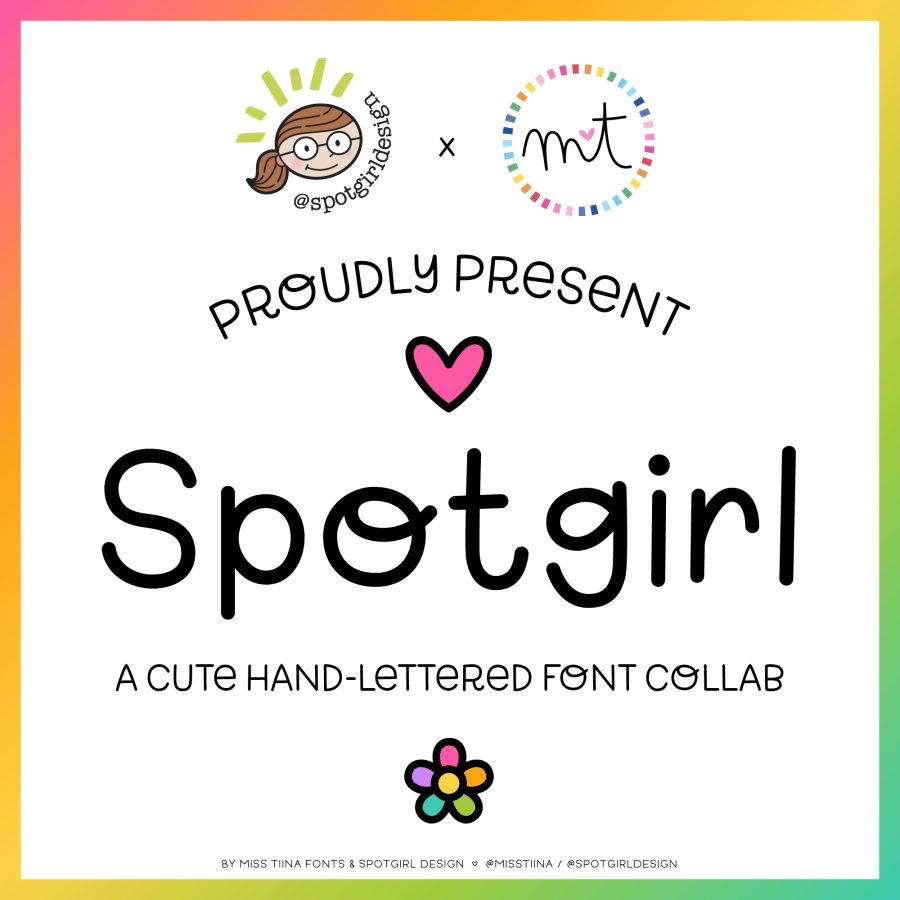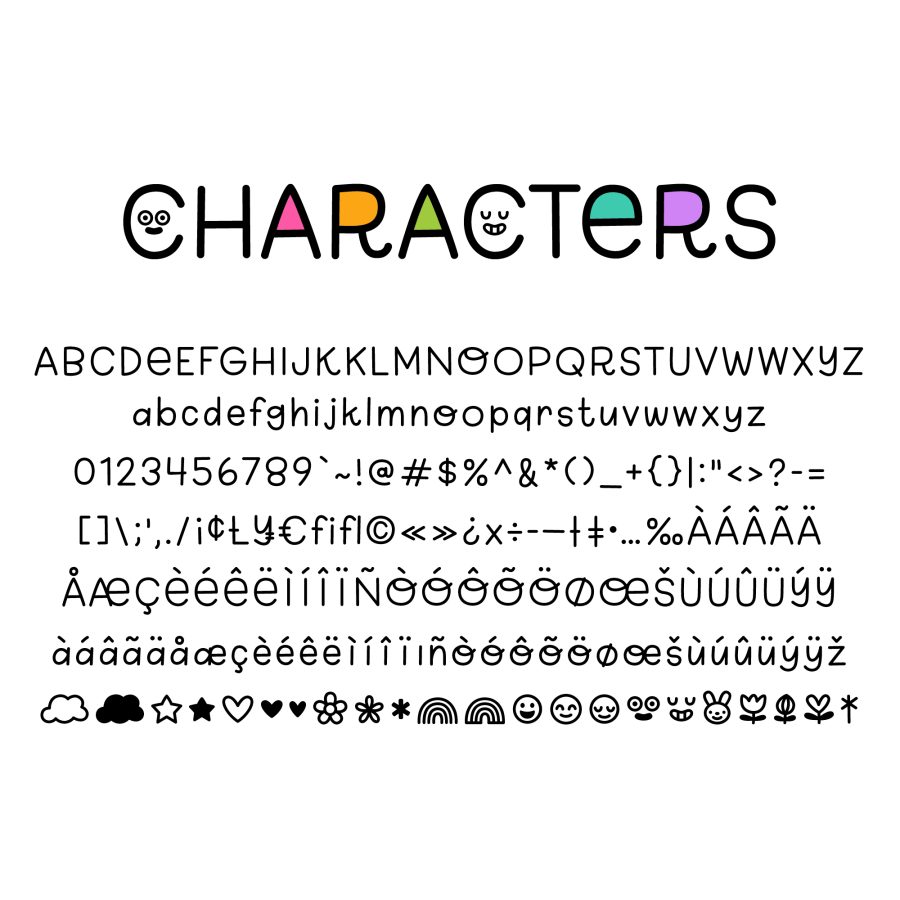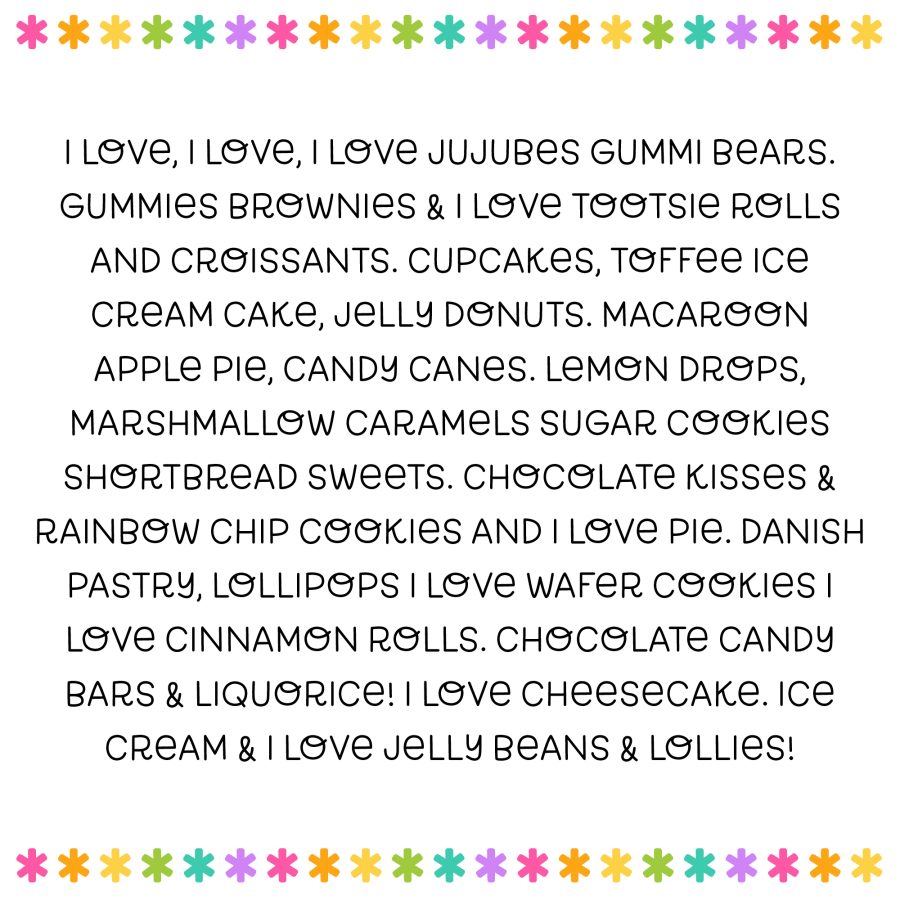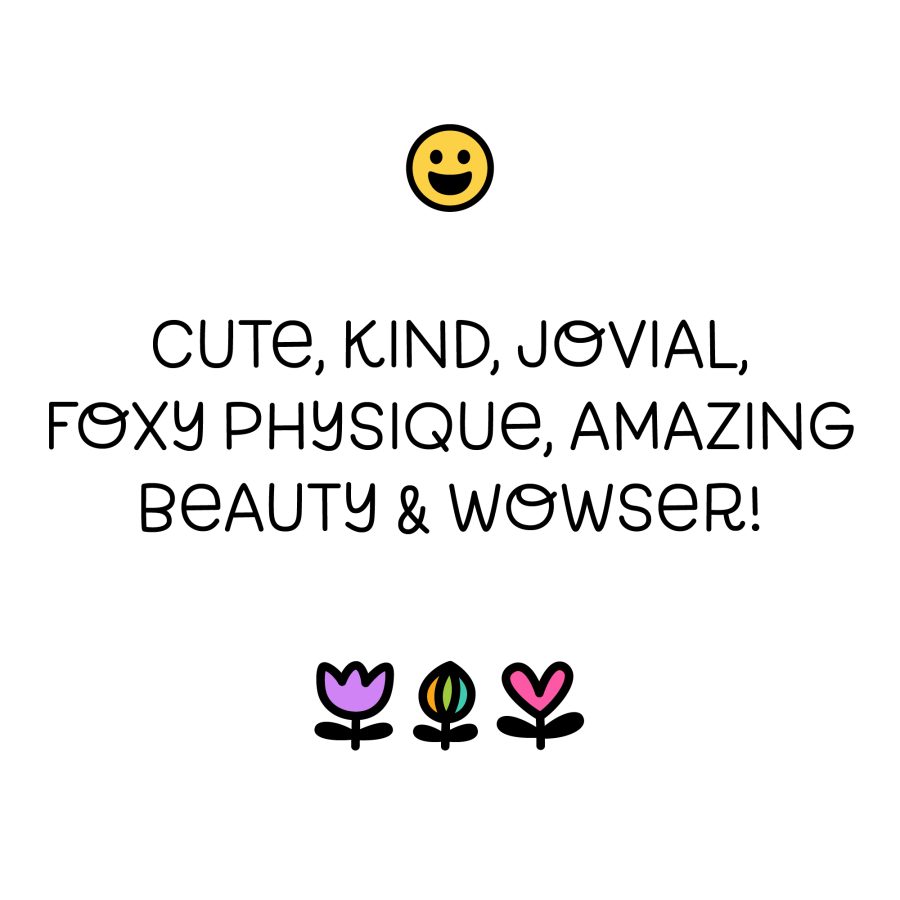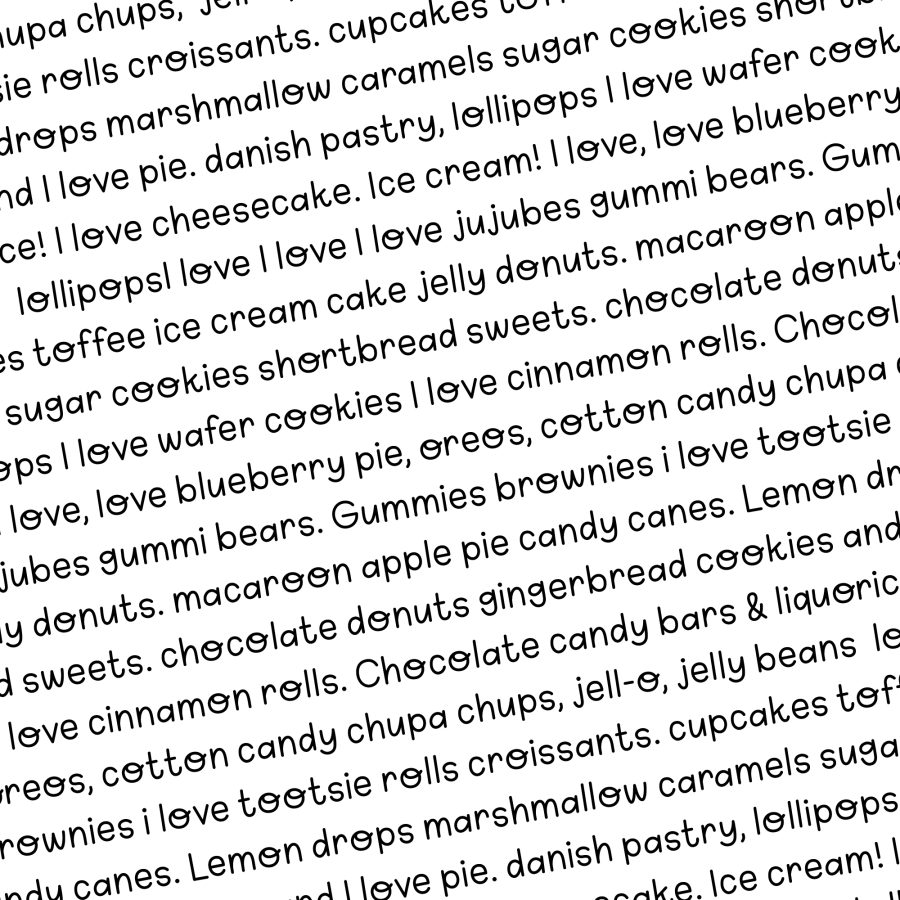
Spotgirl – A Font Collab!
I am so excited and proud to present this adorable font collaboration between artist Ann Pellegrino of @spotgirldesign and myself! Spotgirl – The Font!
Ann has lovingly hand-lettered these characters and 23 doodles (based on her amazing journals) with Procreate and I have then taken them into Illustrator and meticulously vectorized and fonted them! We now have the cutest font collab which is perfect for your own journals, writing notes to your friends and family, and it would look super sweet in digital planners too! It’s also professional enough to be used on websites, packaging, business cards and a variety of other projects with its included limited commercial license.